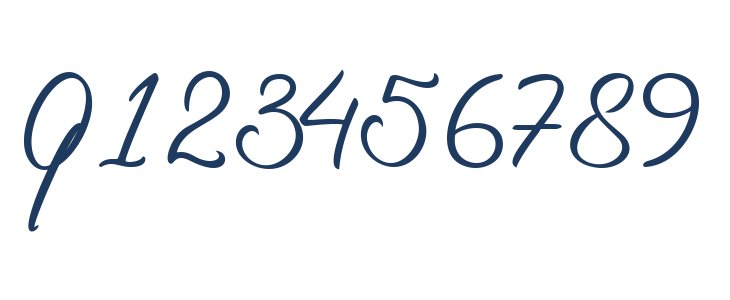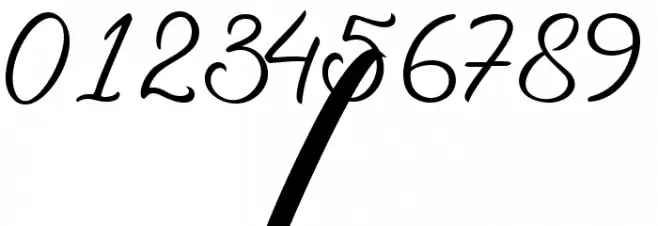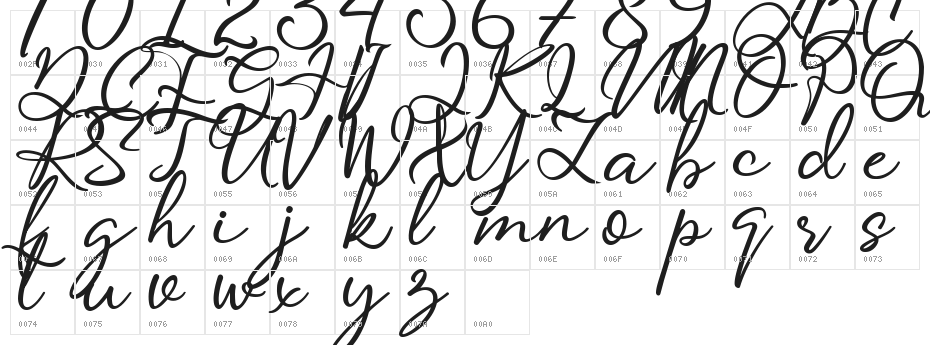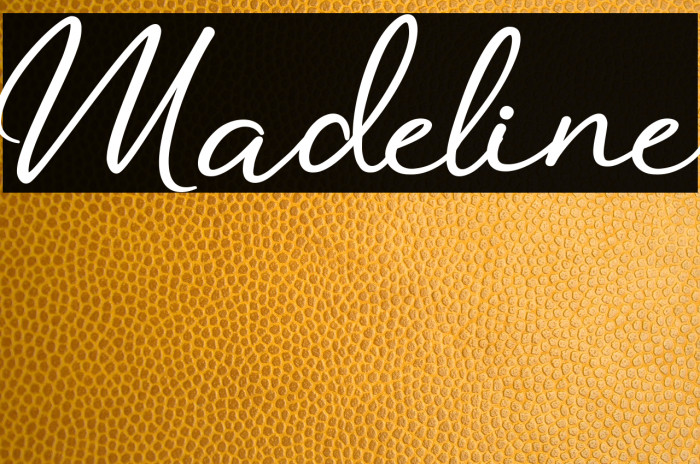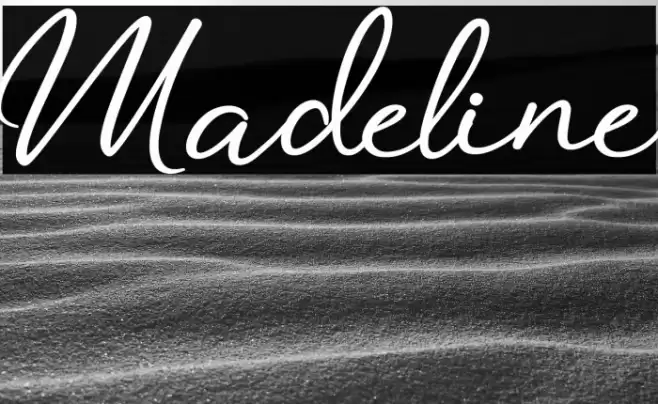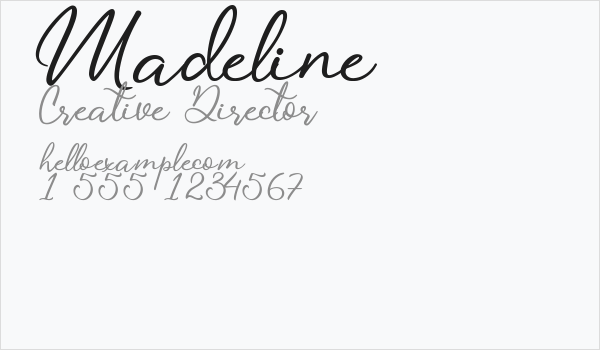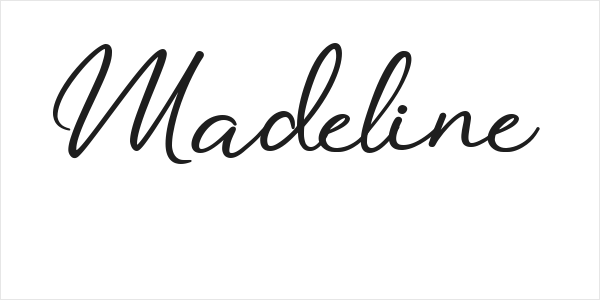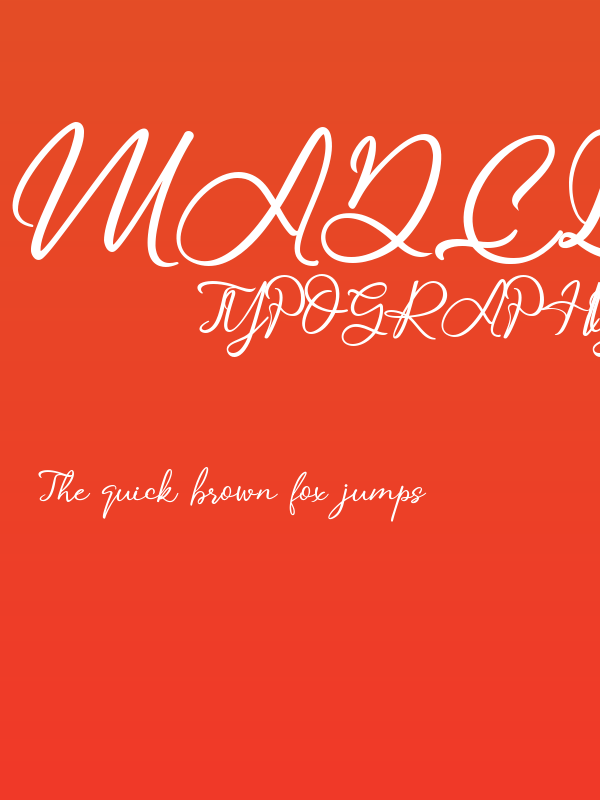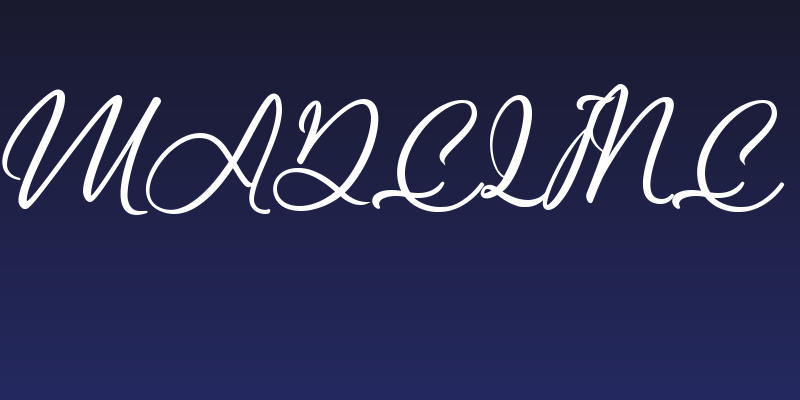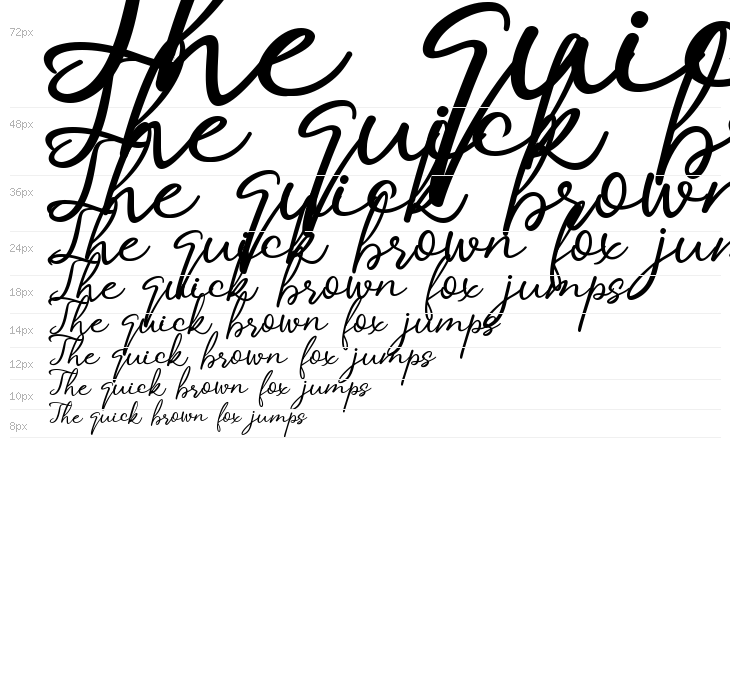
Madeline Font
Madeline Description
This elegant script font features a flowing, cursive style with smooth, interconnected strokes that create a sense of fluidity and grace. The uppercase letters are ornate and slightly larger, providing a striking contrast to the more delicate lowercase characters. Each letter is carefully crafted with consistent loops and curves, giving the font a harmonious and balanced appearance. The numerals are equally stylized, maintaining the overall aesthetic with their rounded forms and subtle flourishes. This font exudes sophistication and charm, making it ideal for projects that require a touch of elegance and personal flair.